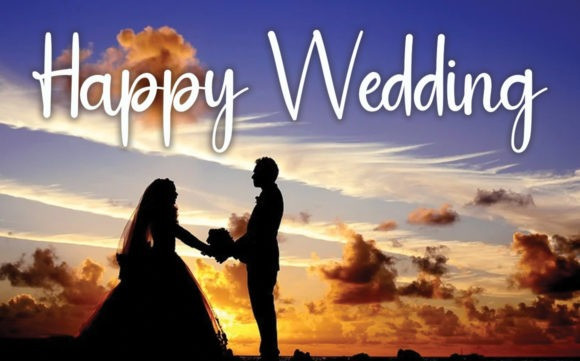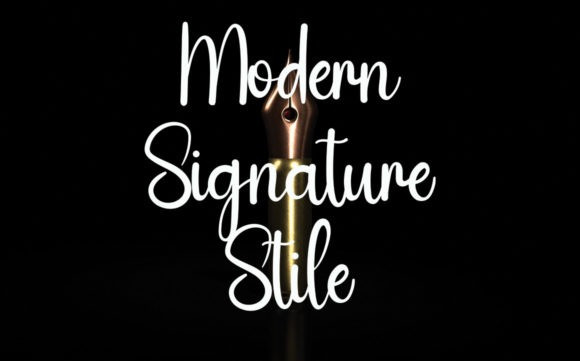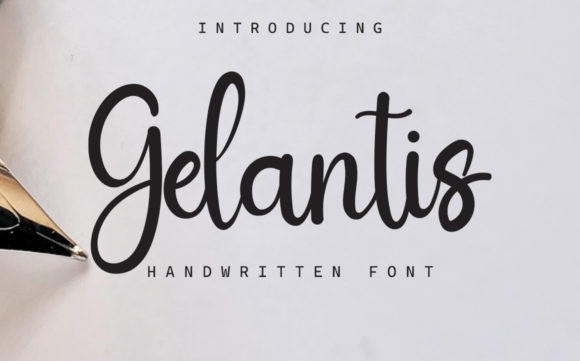
Gelantis Script Font
Gelantis Script Font is a beautiful and flowing handwritten font. Use it for wall displays, wedding invitations, social media post logos, advertisements, product packaging, product designs, labels, photography, watermarks, invitations, stationery, and any project that requires impressive typography.